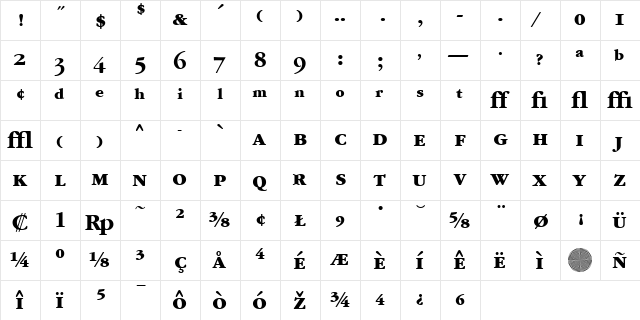
GarryMondrianExpt6 BoldSH
Design Context for GarryMondrianExpt6 Typeface
GarryMondrianExpt6 takes a measured approach to typography — its balanced proportions and neutral character make it a reliable workhorse for both digital and print work. The heavy weight commands attention and anchors typographic hierarchies.
Pro Tip: Use GarryMondrianExpt6 in both headline and body roles to test its range before committing to a single application.